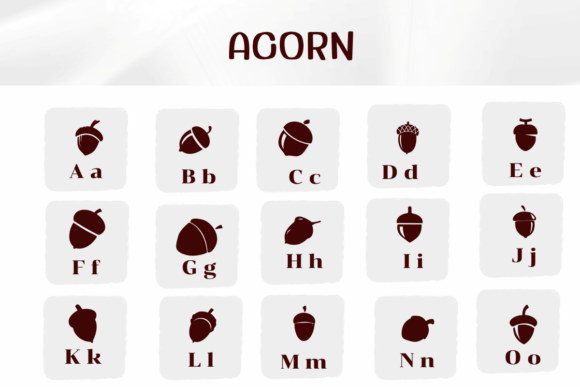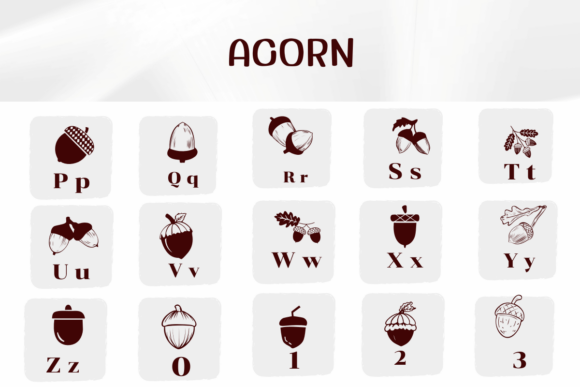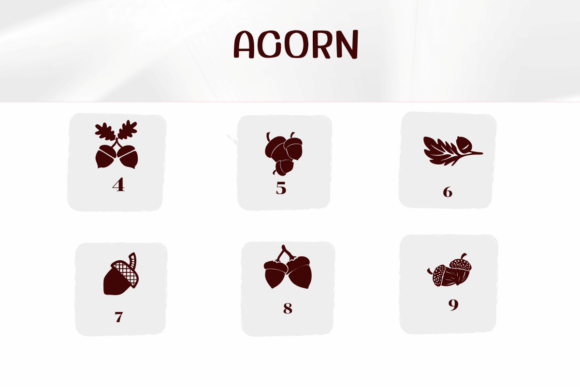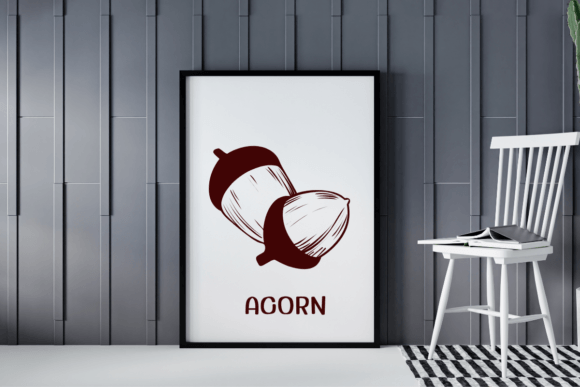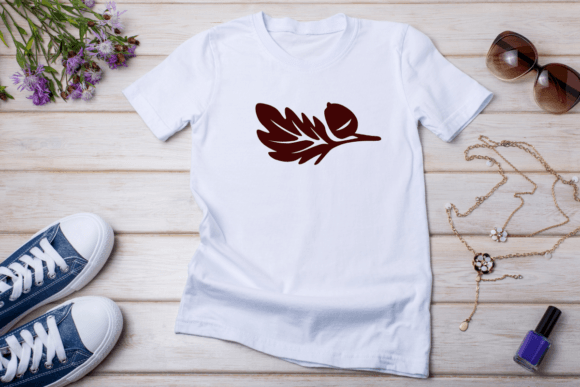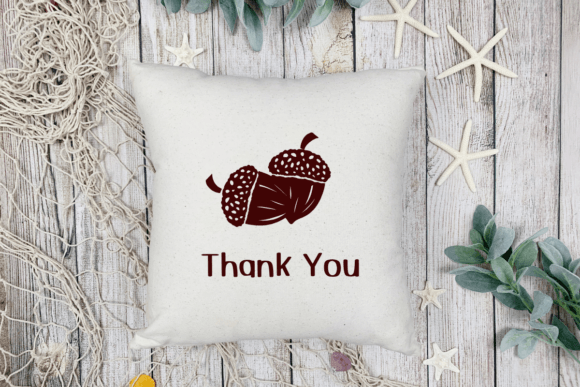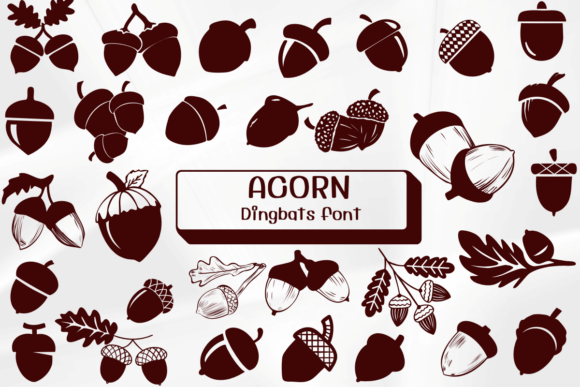
The Acorn Font: A Nutty Addition to Your Design Toolbox
I still remember the design project that led me to discover the Acorn Font. I was working on a nature-themed craft project for a client who wanted a playful, autumn-inspired look. As I scrolled through font options, I stumbled upon this delightful dingbat font filled with small pictures of acorns. It was love at first sight! The Acorn Font added a touch of whimsy and charm to my design, and I knew I had to share it with fellow creatives.
An Honest Review of Acorn Font
- ✨ The Acorn Font is perfect for nature-themed crafts or autumn-inspired work, adding a playful touch to designs.
- ✅ It’s incredibly versatile, allowing you to use it to decorate designs, add cute details, or make your projects feel natural and playful.
- 🌿 The font’s illustrations of acorns are beautifully designed, making it a great choice for projects that require a natural, outdoorsy feel.
While the Acorn Font is a fantastic addition to any design toolbox, there are a few things to keep in mind:
- ⚠️ As a dingbat font, it may not work well for body text or lengthy paragraphs.
- 🤔 Some users may find the font a bit limited in terms of styling options, but this can also be seen as part of its charm.
The Story Behind Acorn Font
The Acorn Font was designed by a creative team who wanted to capture the charm and playfulness of nature. Inspired by the beauty of autumn, they created a font that would bring a touch of whimsy to designs. The result is a delightful dingbat font that’s perfect for nature-themed crafts or autumn-inspired work.
| Font Name | Acorn Font |
| Author | Ketsarin |
| What is the Acorn Font? | The Acorn Font is a fun and creative dingbat font filled with small pictures of acorns. |
| What can I use the Acorn Font for? | You can use the Acorn Font to decorate designs, add cute details, or make your projects feel natural and playful. |